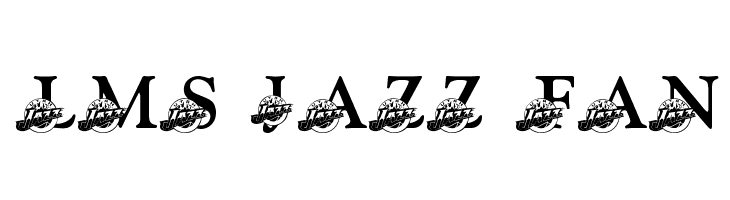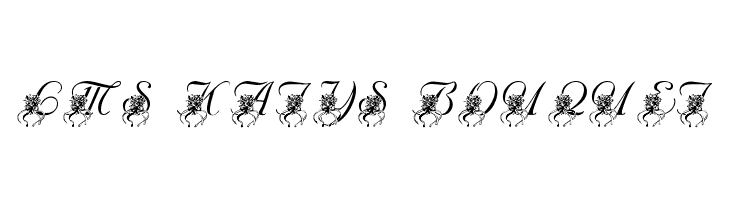
An ornate script font with floral embellishments, perfect for elegant designs.
A decorative font featuring cat silhouettes integrated into each letter.
A bold, sports-themed font with integrated basketball motifs.
A festive, decorative font with holly embellishments on each character.
A nautical-themed decorative font with rope and anchor motifs.
A bold, dynamic font with a sporty, energetic style.
A whimsical font with characters inside frothy beer mugs, ideal for festive designs.
An ornate, Claddagh-inspired decorative font with intricate designs.